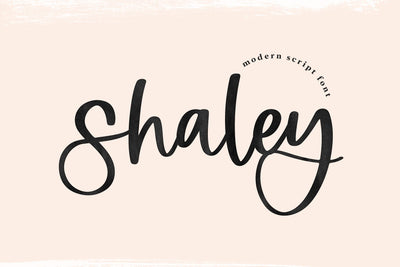
Shaley - Modern Script Font
Shaley is a handwritten script font with a modern look!
This font is perfect for signs, farmhouse decor, branding, invitations, logos and more!